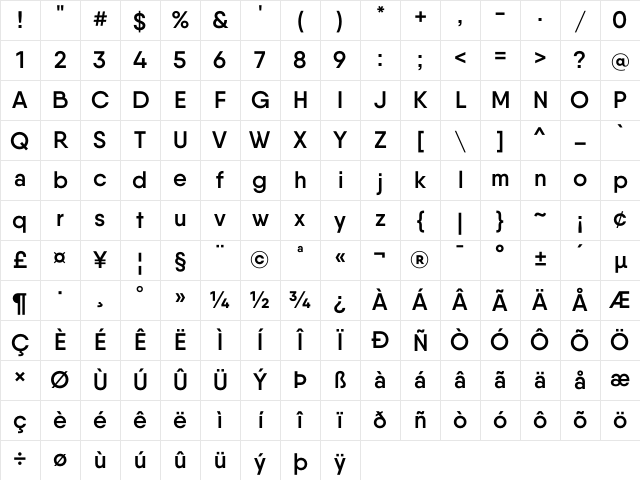
Complete Qanelas SemiBold glyph index. Displaying only characters natively supported by Qanelas SemiBold font.
Qanelas is a composed and adaptable typeface that performs quietly and consistently across a wide range of design contexts. Its bold stroke weight gives it real presence on the page.